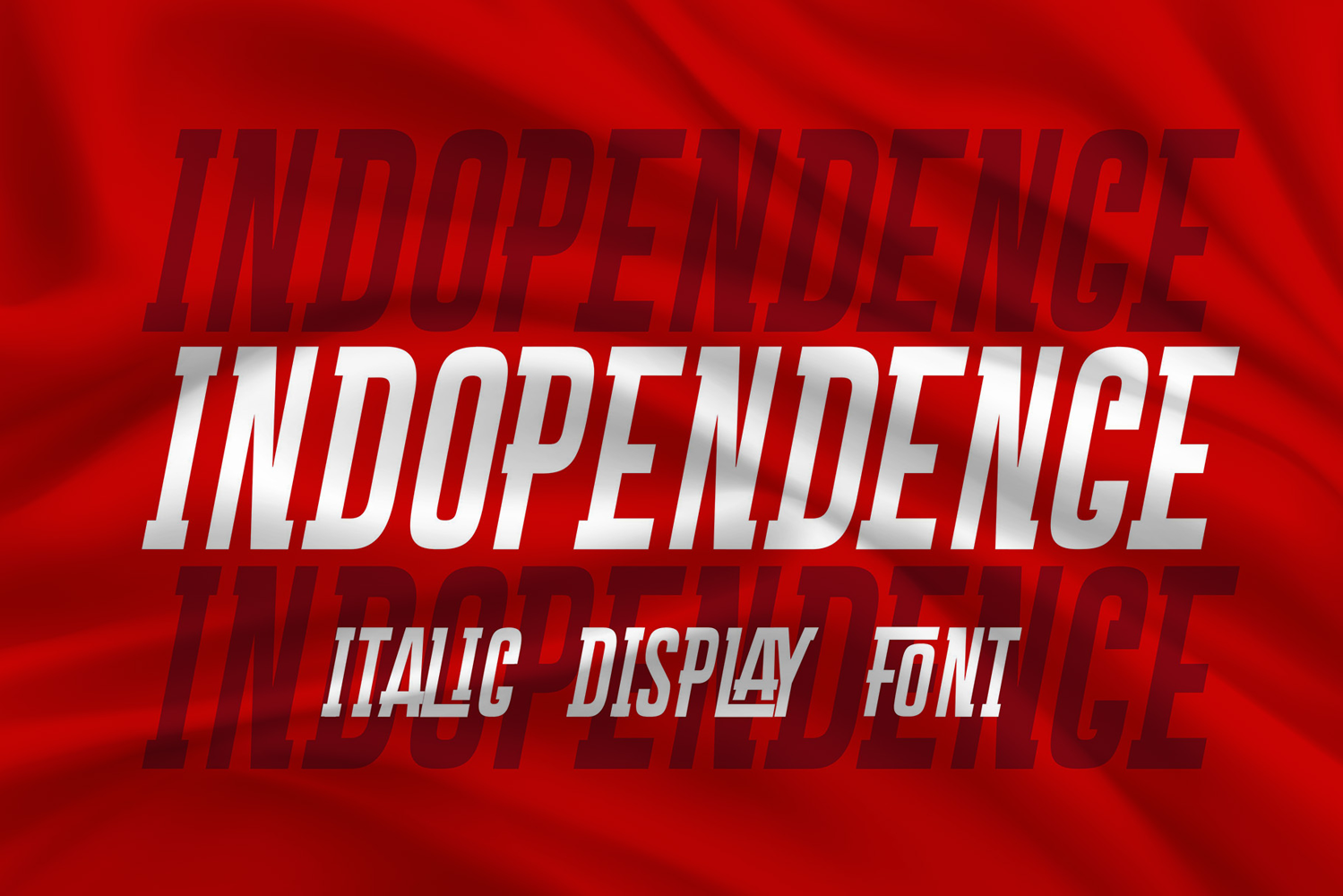
Indopendence - Italic and Modern Display Font
Indopendence is a dynamic italic display font that embodies strength, speed, and modernity. Designed with sharp, angular lines and a bold presence, this font adds a sense of motion and energy to any project.
🚀 Sleek and Powerful: Indopendence’s italic slant gives text a forward momentum, making it perfect for designs that need a touch of urgency or excitement. It’s an ideal choice for logos, headlines, posters, and anything that requires a commanding visual impact.
🔗 Versatile and Distinct: With its strong, clean lines and contemporary style, Indopendence easily adapts to a variety of design contexts. Whether you’re crafting a cutting-edge brand identity or a striking promotional graphic, this font delivers a modern edge that stands out.
💥 Bold and Impactful: The boldness of Indopendence ensures that your message is loud and clear. Its italic form not only enhances readability but also adds a stylish twist that catches the eye.
Indopendence is the go-to font for those looking to make a powerful statement with their designs. Its italic display style delivers a perfect blend of strength and sophistication, making it an essential addition to any designer's toolkit.